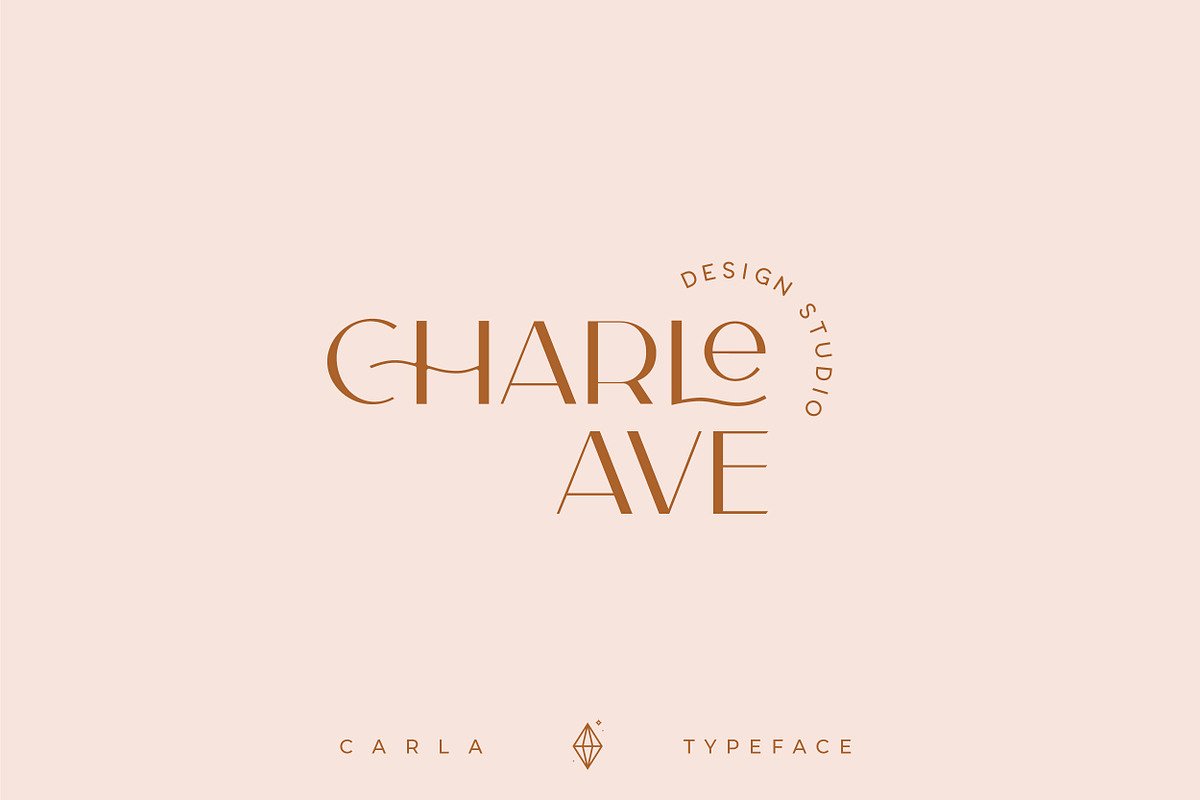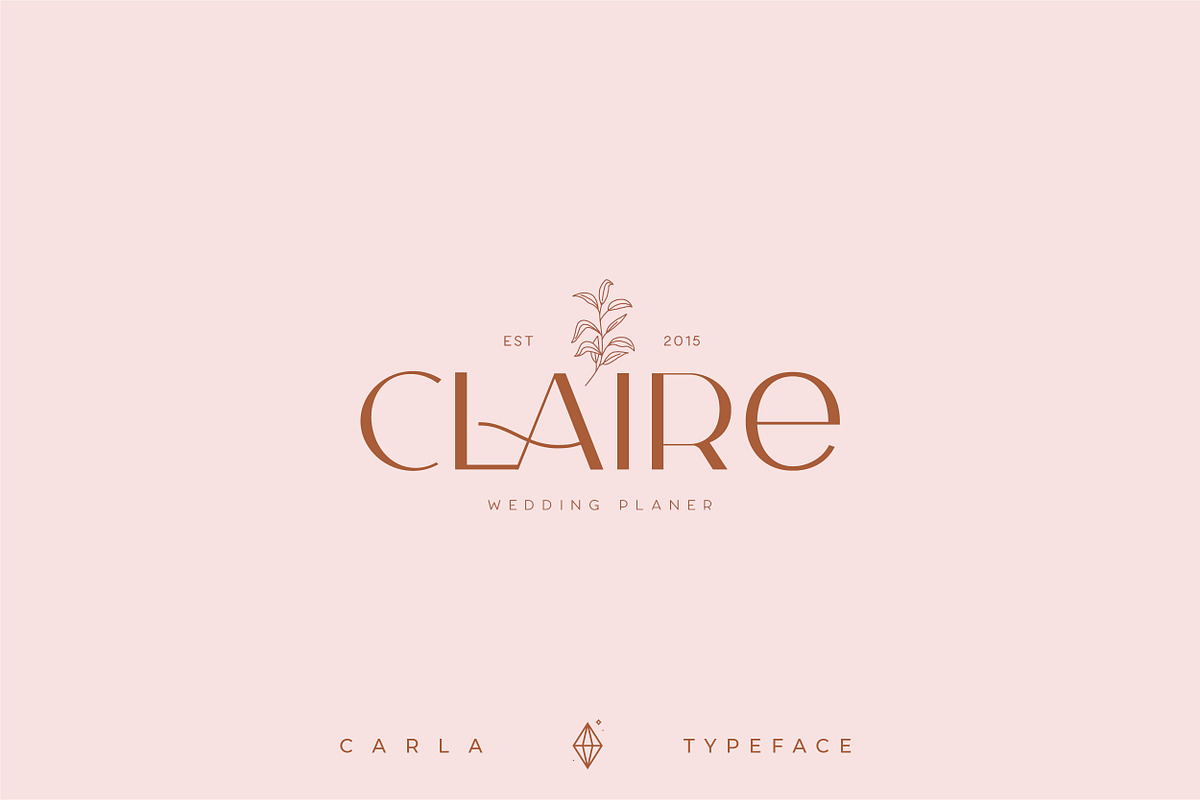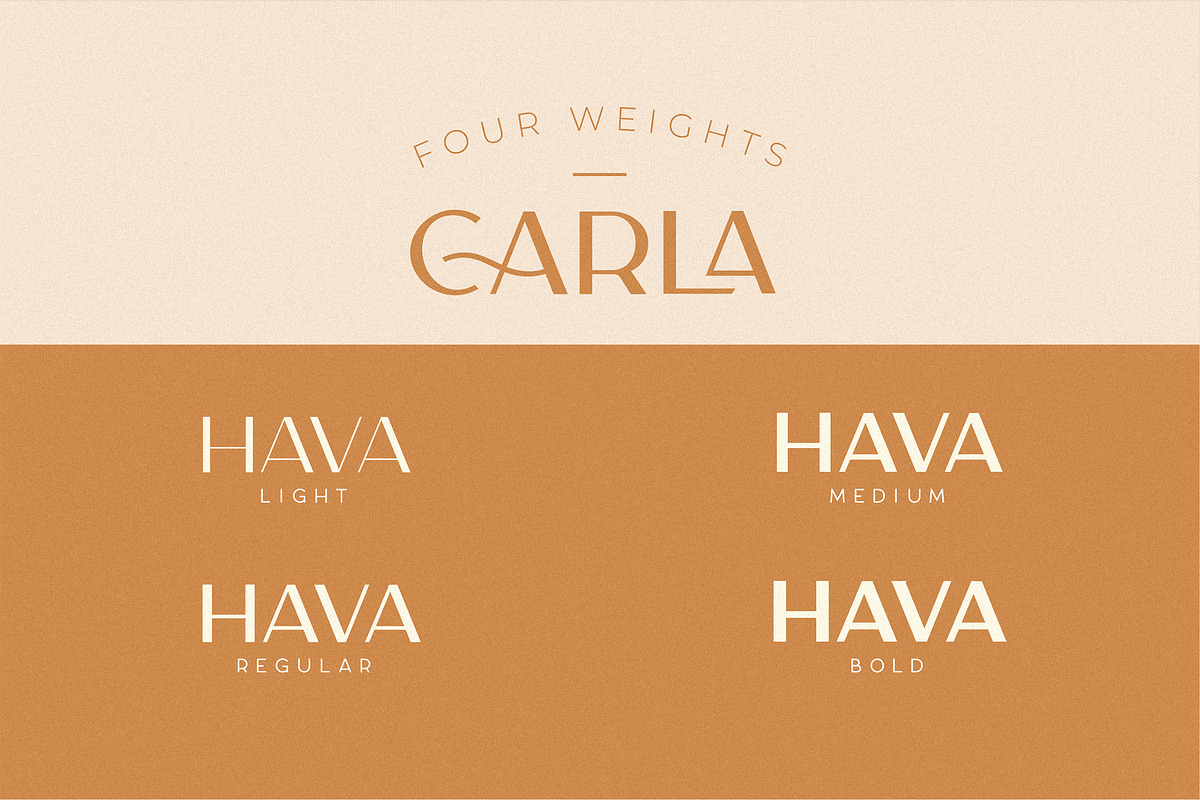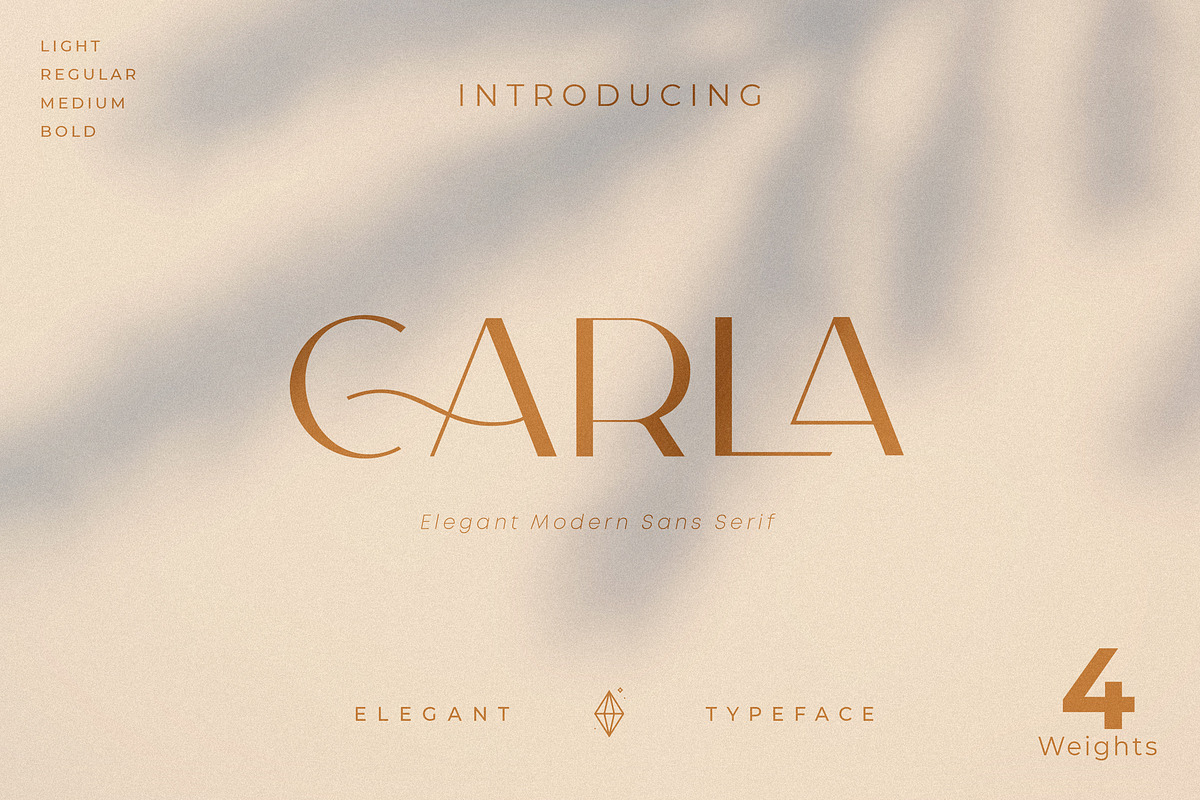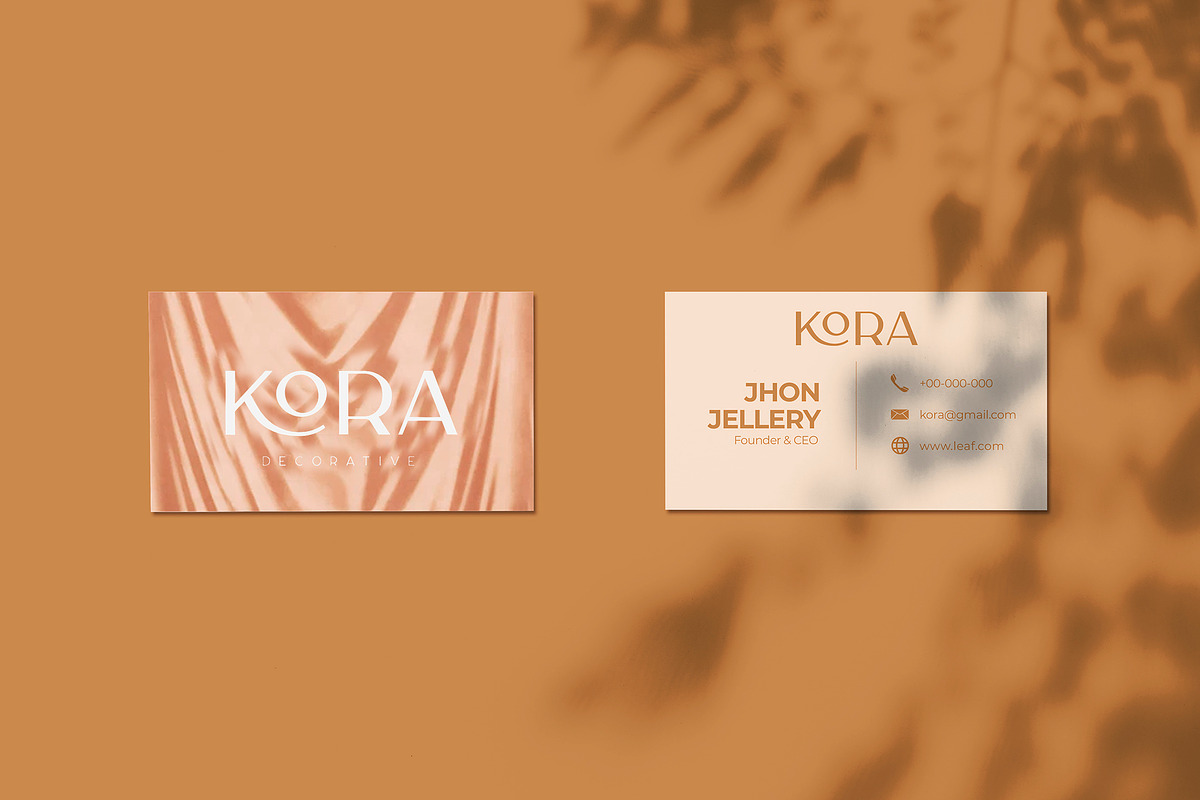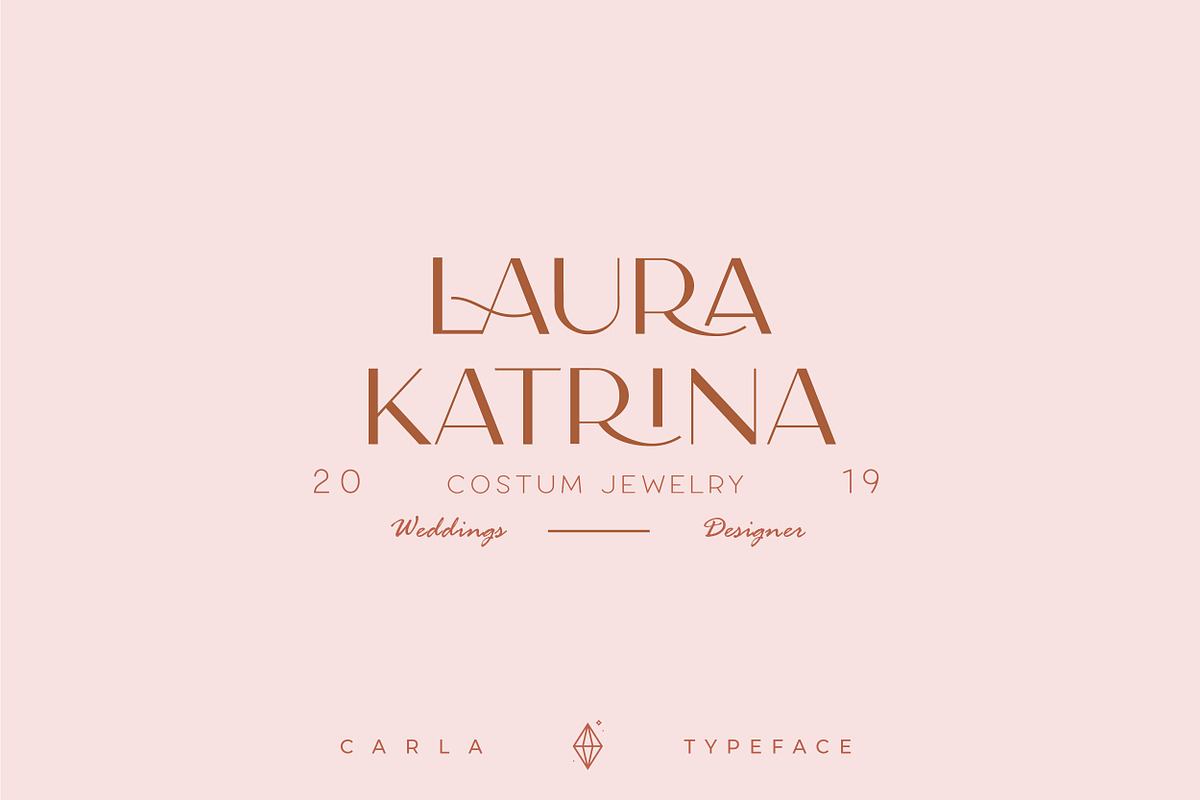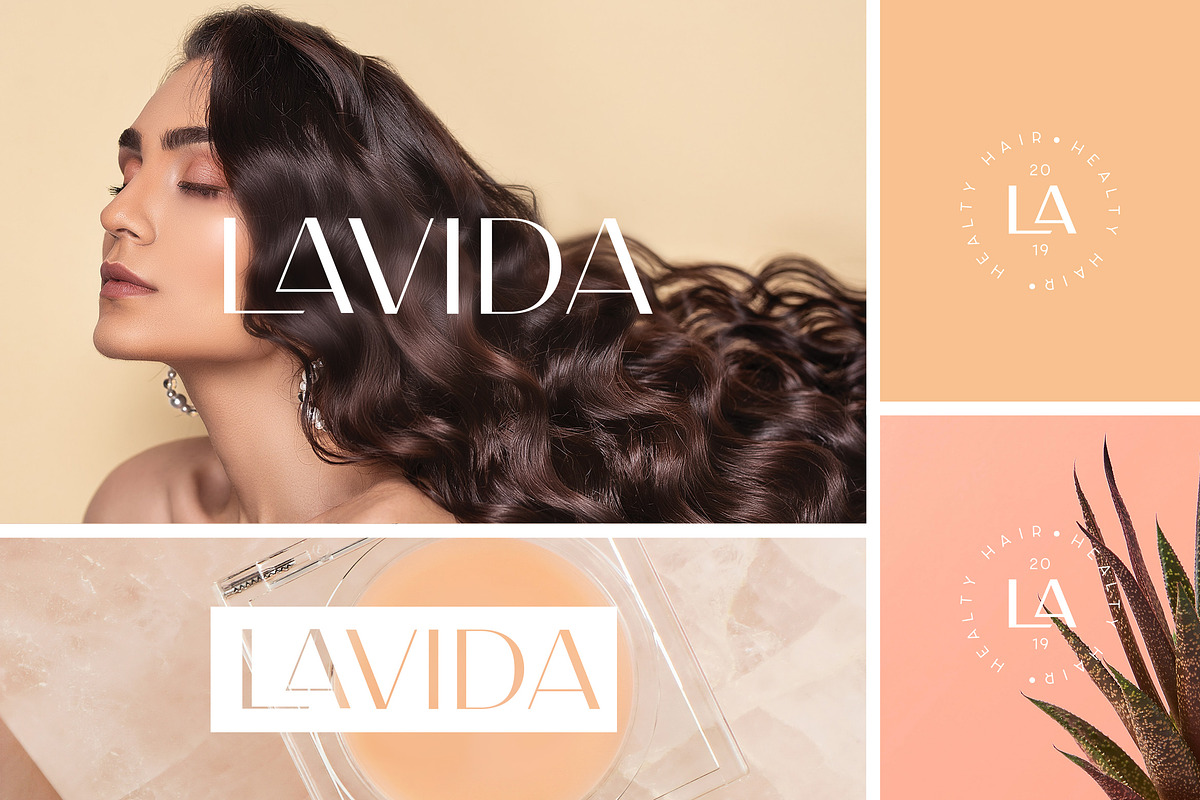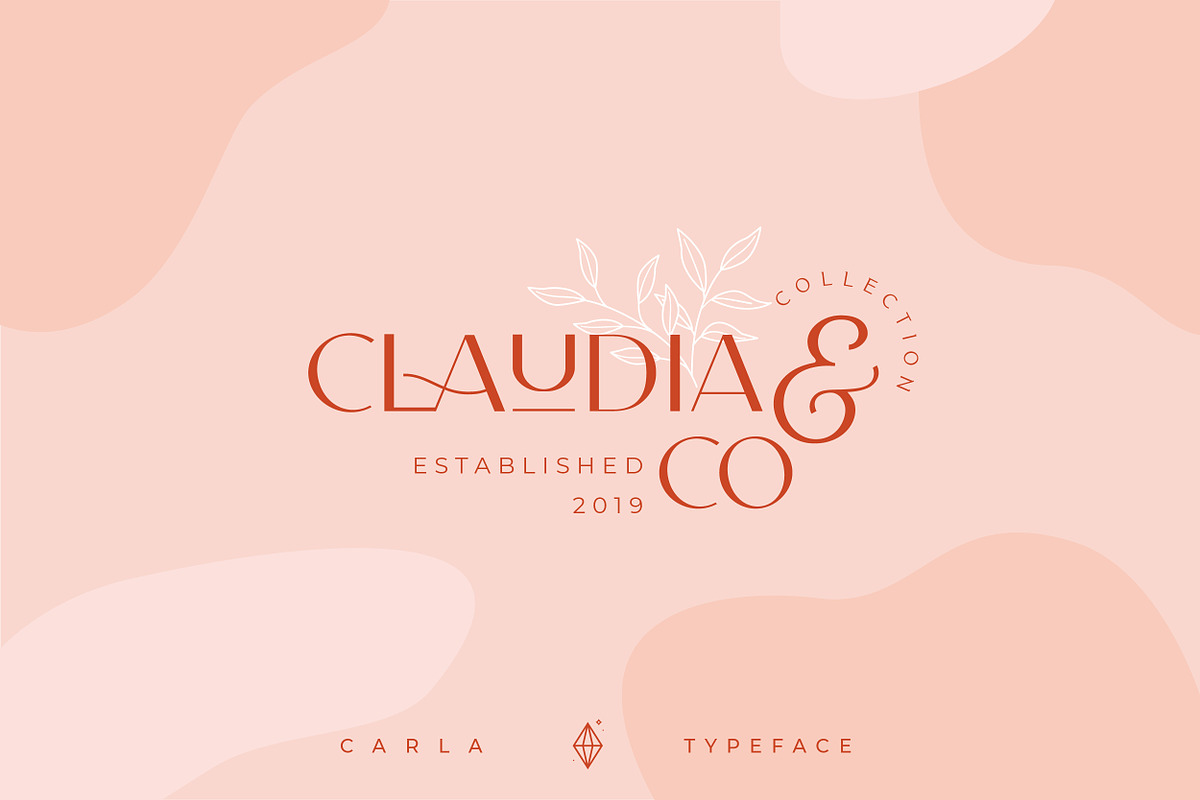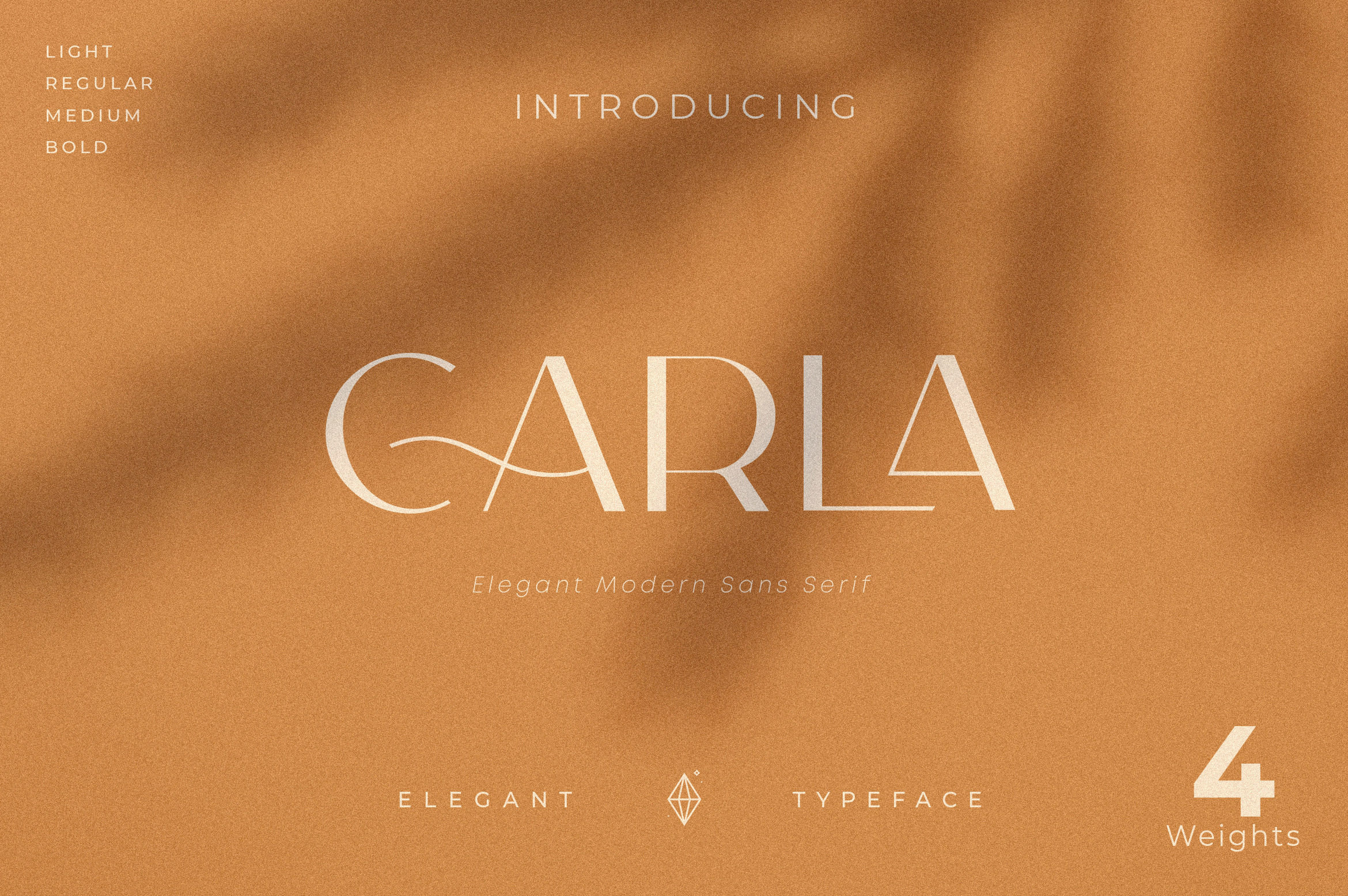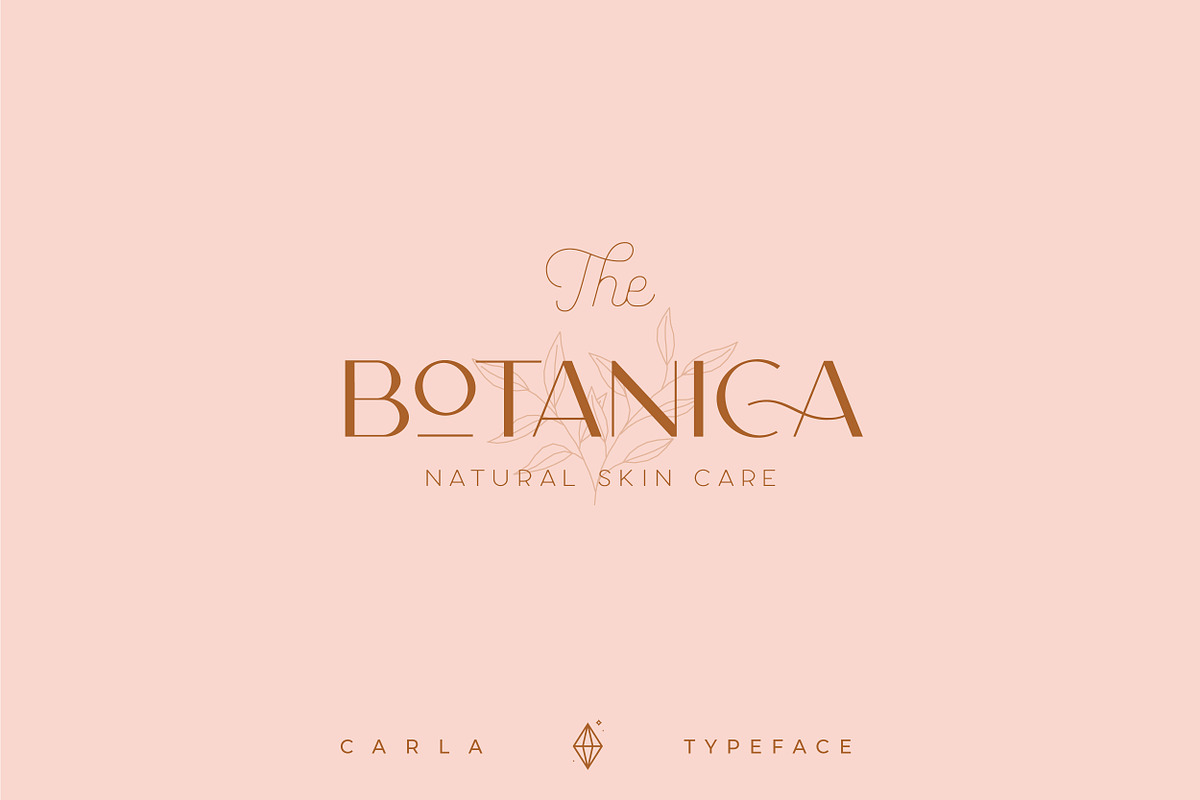
Carla Sans is a Minimalist Modern Elegant font with beautiful ligatures, tons of special alternative glyphs, ornament and multilingual support. It's a very versatile font that works great in large and small sizes. Carla Sans is perfect for branding projects, Logo design, Clothing Branding, product packaging, magazine headers, or simply as a stylish text overlay to any background image.
4 Weights font
All caps
Stylistic Alternates & Ligatures
Accented characters
Multiple Languages Supported
A couple that I am doing a wedding invitation for chose this font for their Art-Deco-in-Cuba theme. When I actually started working with it, I appreciated the range of ligatures included. (As a typography snob, I would love to have even more ligature or alternative letterform options, but I know that is asking a lot.) Overall, a good purchase for the price.